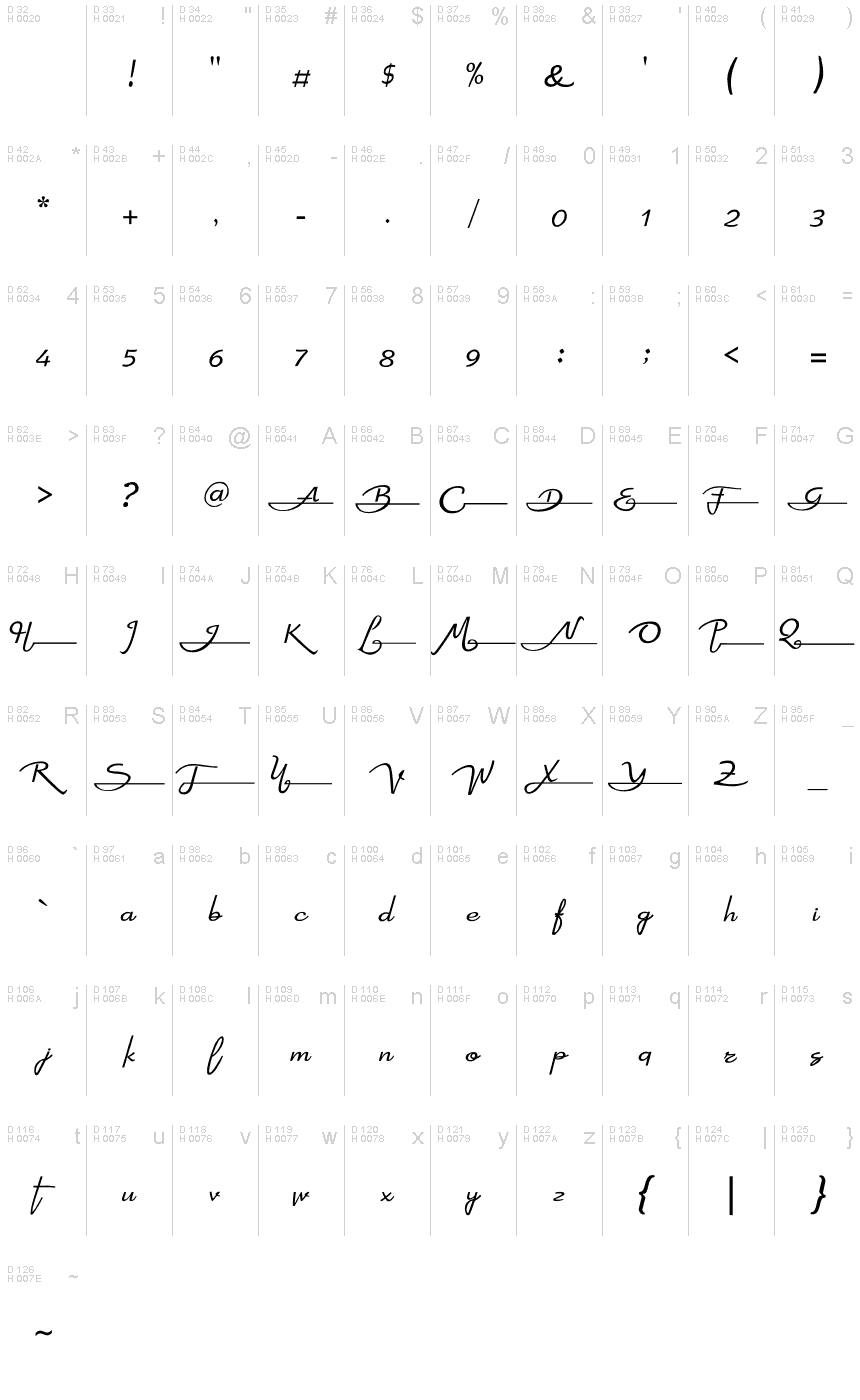
Lattereo-Stylistic
Lattereo Stylistic is the perfect semi-light handwritten font for a wide range of creative projects. This signature style font was designed by wisnukhayzen, and it's sure to add a touch of elegance to any project. Whether you're designing invitations, logos, or social media graphics, Lattereo Stylistic will elevate your work with its unique hand-drawn flair. Its semi-light weight makes it readable yet delicate, making it ideal for wedding stationery or luxury brands. The Lattereo family offers versatility with various weights and styles that can cater to different design needs. Give your designs a personal touch with Lattereo Stylistic today!